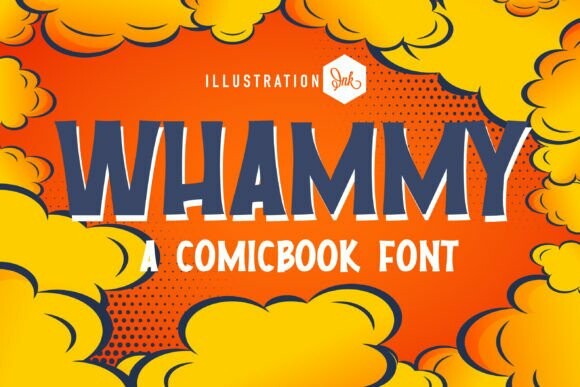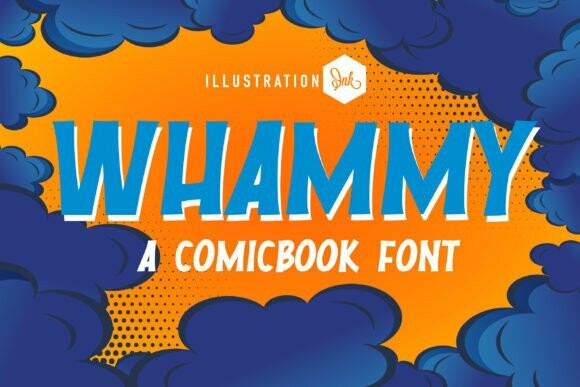
Whammy Font
Designer: Illustration Ink
Whammy Font is a fun and lively font, perfect for cartoons and comics. Its bold, playful letters make any text look exciting and energetic, capturing the attention of readers with its unique and expressive style.